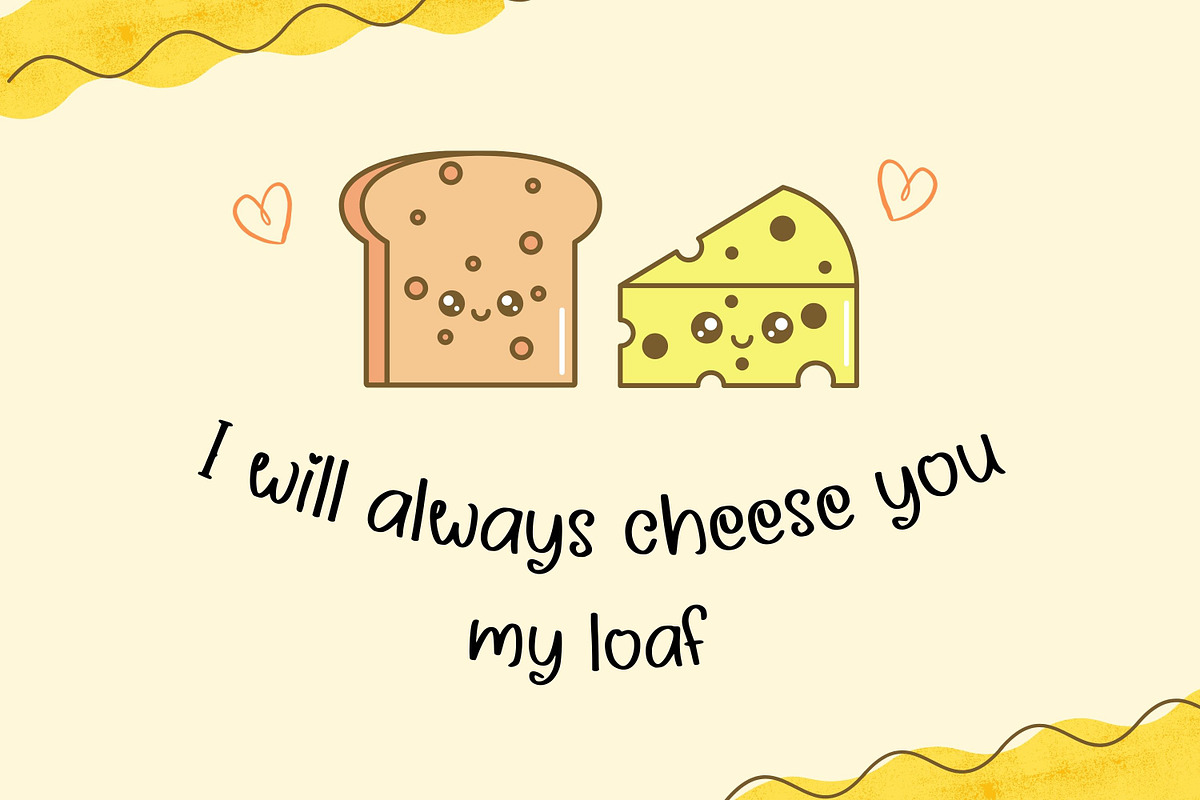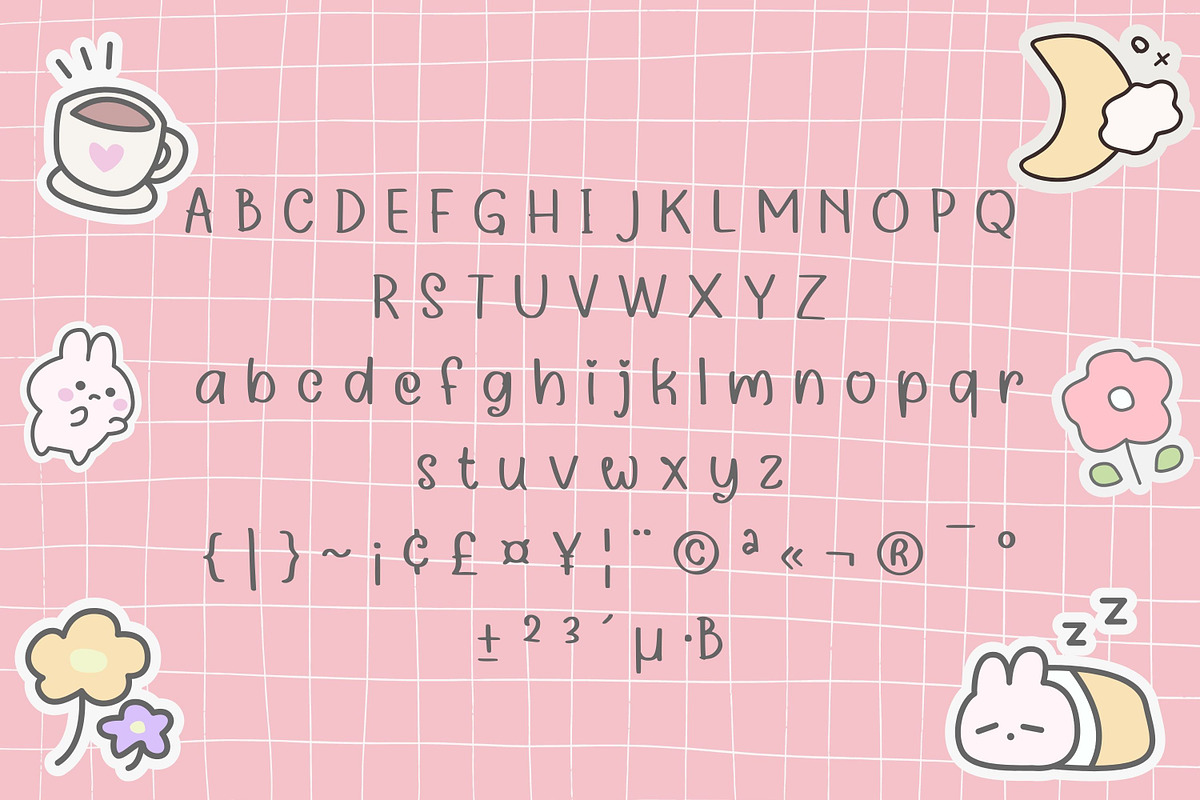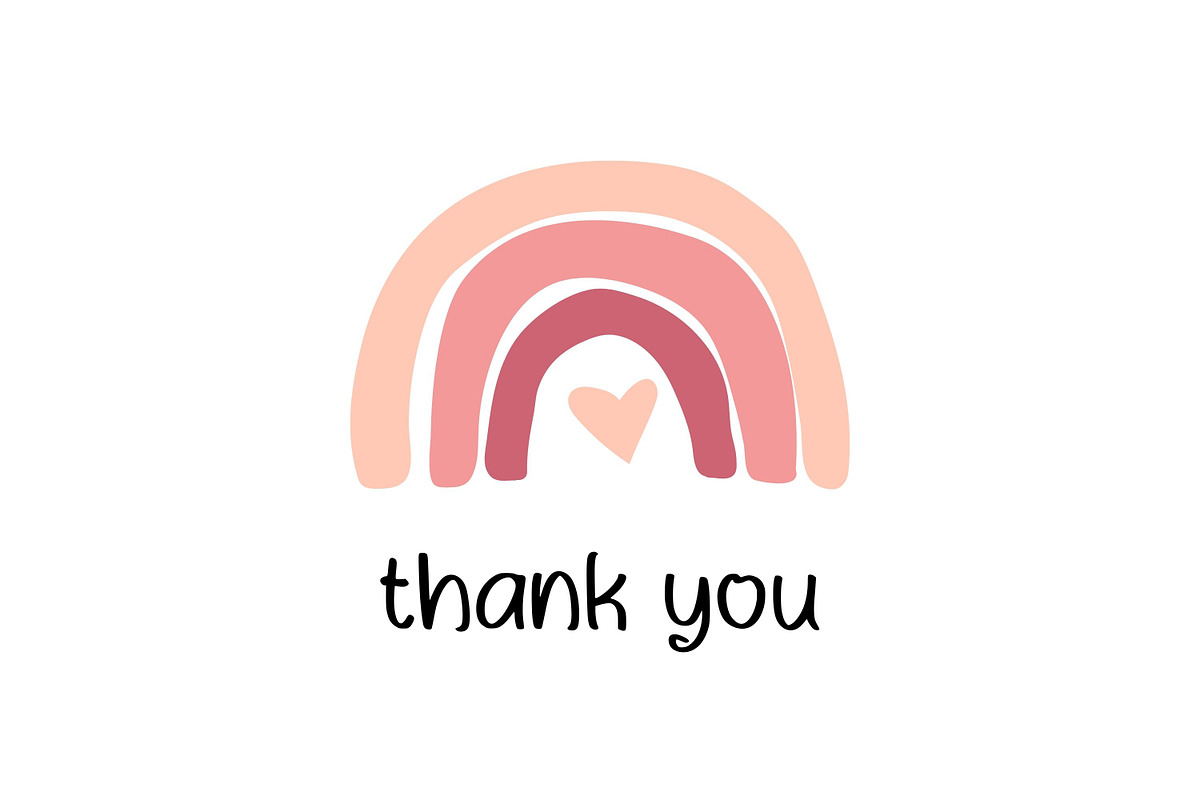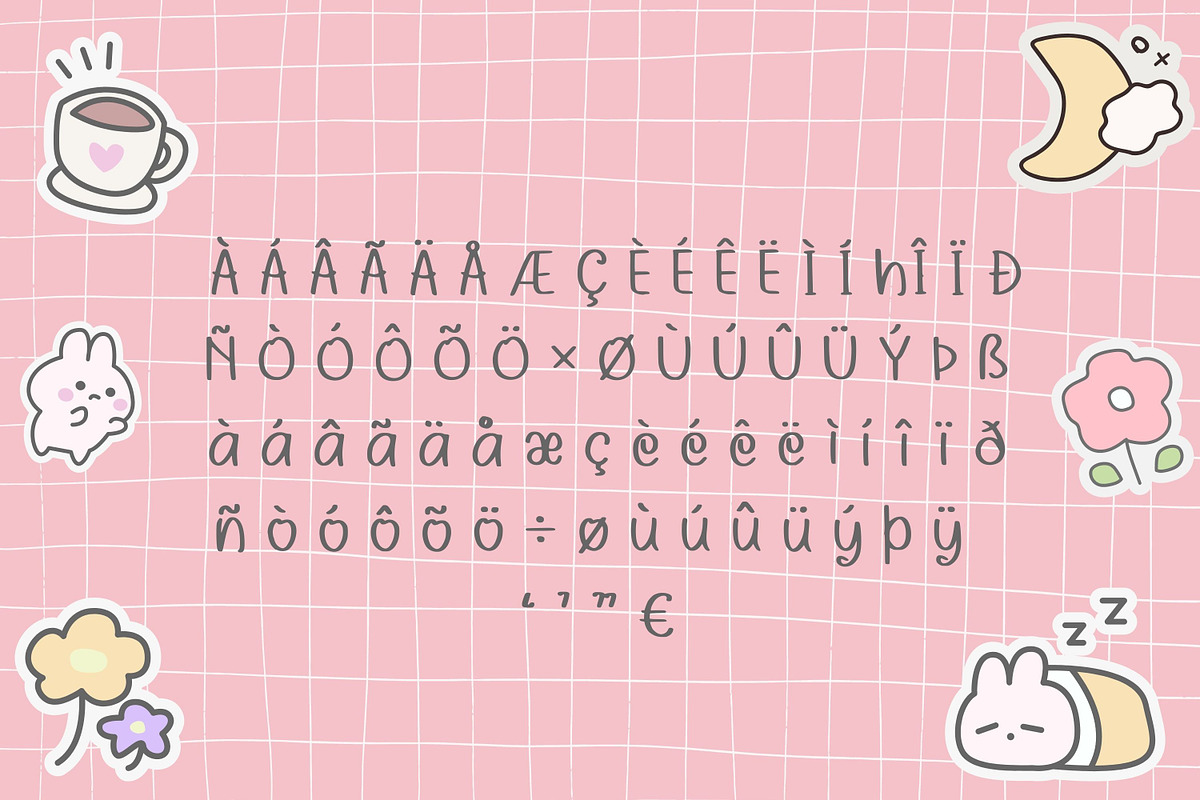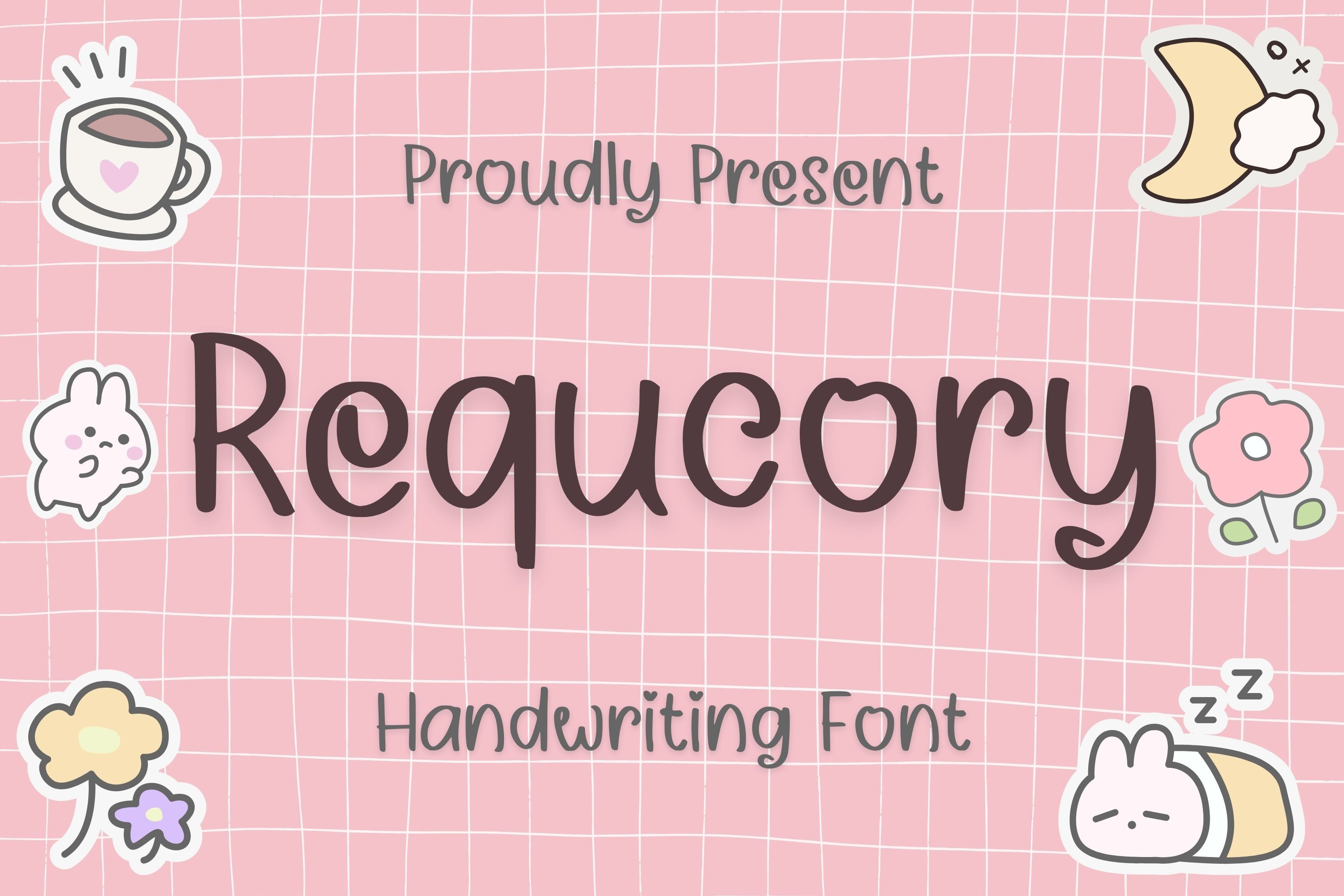
Requcory Lovely Font
Requcory Lovely Handwriting Font is a beautiful and elegant font that is perfect for a wide range of design projects. This font features a sophisticated hand-written style that has a romantic and refined feel, making it ideal for use in wedding invitations, love letters, greeting cards, and other creative projects.
Requcory Lovely Handwriting Font is a versatile font that works well in both large and small sizes, making it suitable for use in both headlines and body copy. The font is also designed to be easy to read, making it a great choice for long-form text.
Overall, Requcory Lovely Handwriting Font is a romantic and sophisticated font that brings a touch of elegance and beauty to any design project. Whether you're designing a wedding invitation, creating a love letter, or working on a logo, this font is sure to make your project stand out.